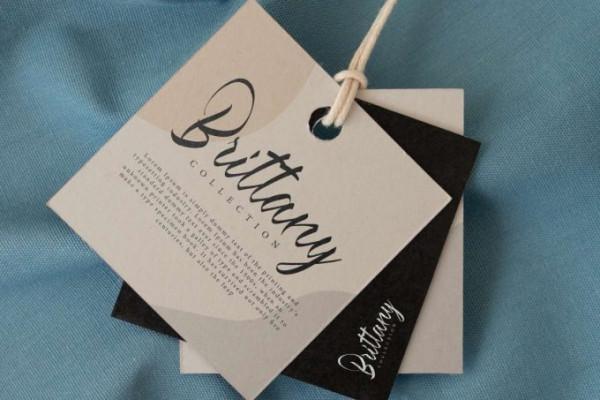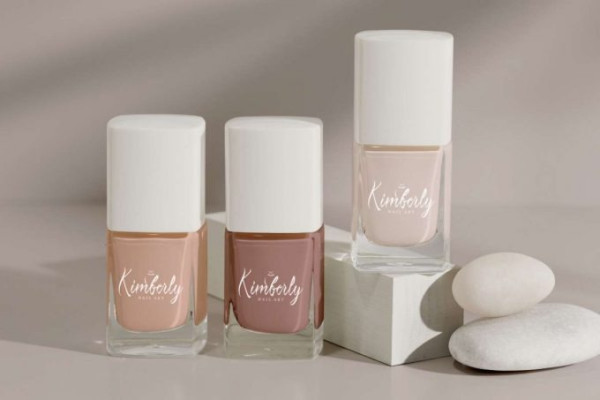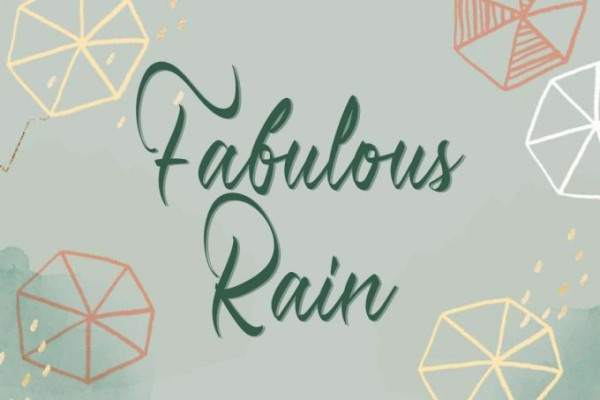
Fabulous Rain Font
Fabulous Rain Font is a stylish handwritten script font by VinType Studio. This font is made of balanced thick and thin strokes that carry a classic concept and is easy to read. This font will be suitable for many industries, such as advertisement, beauty product, event or wedding organizer, fashion, florist, handicrafts, homeware, printing, publishing, salon and spa, and more!
Fabulous Rain Font includes full set of Uppercase and Lowercase Basic Characters, Numerals and Punctuation. This font also contain Ligature characters that will catch your eye and beg to be incorporated into the design immediately, such as brand logo, brochure, business card, custom design, frame art, label, packaging design, poster, quote, screen printing, stationery, website, etc.